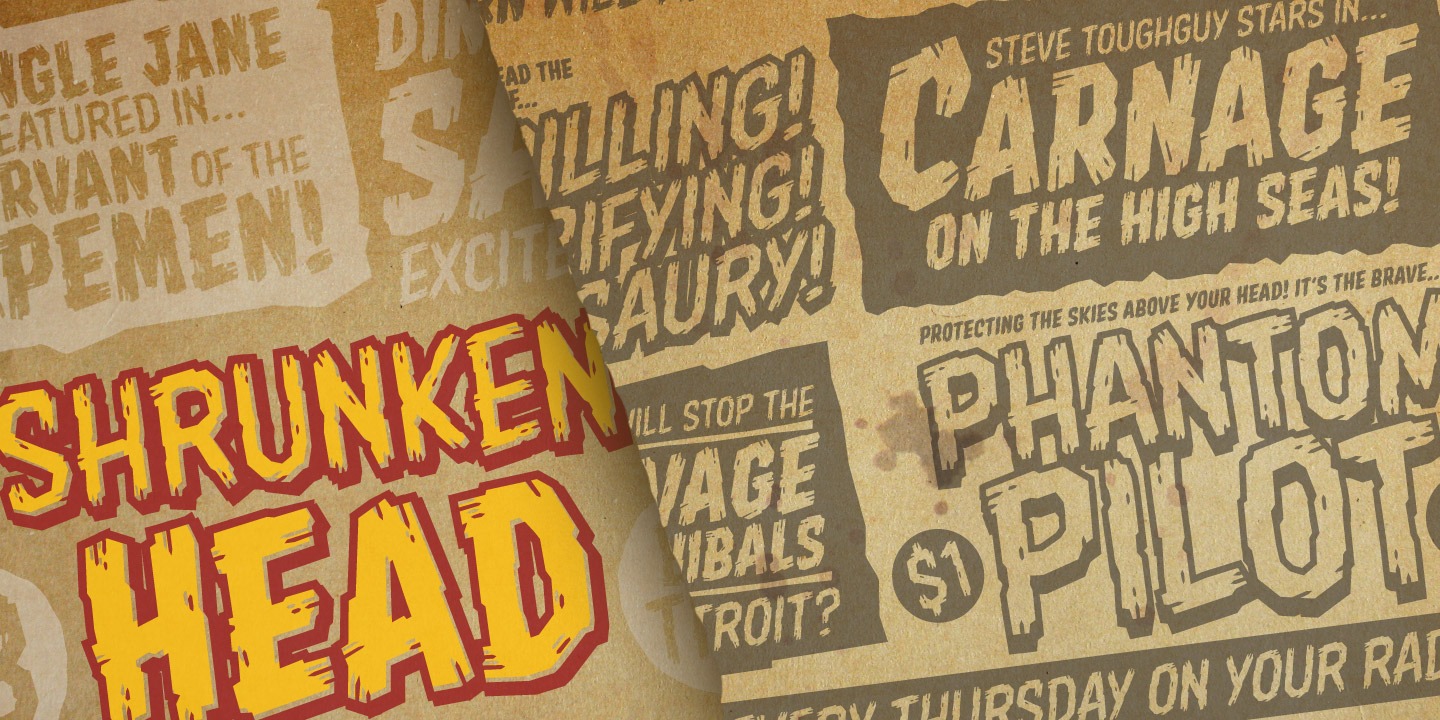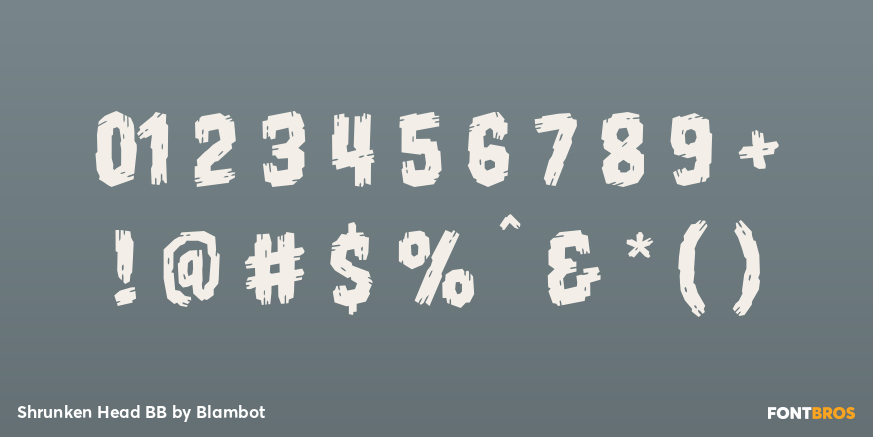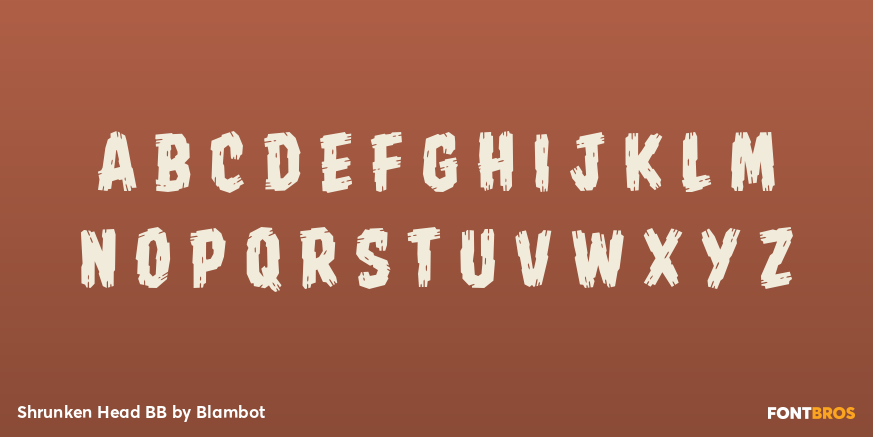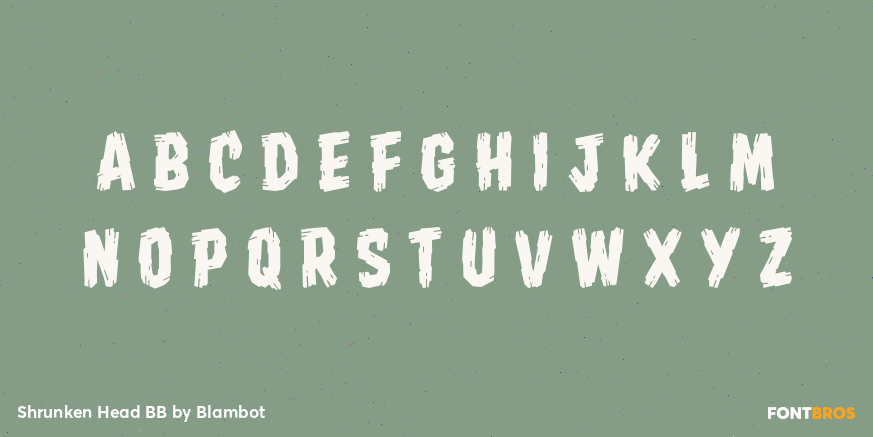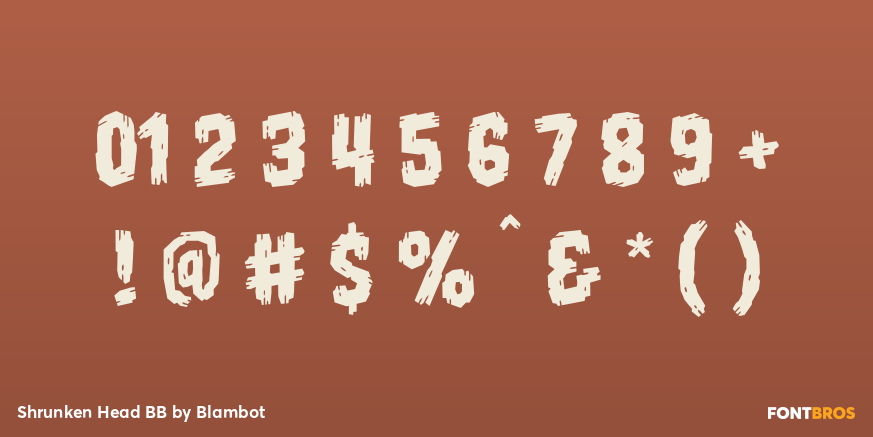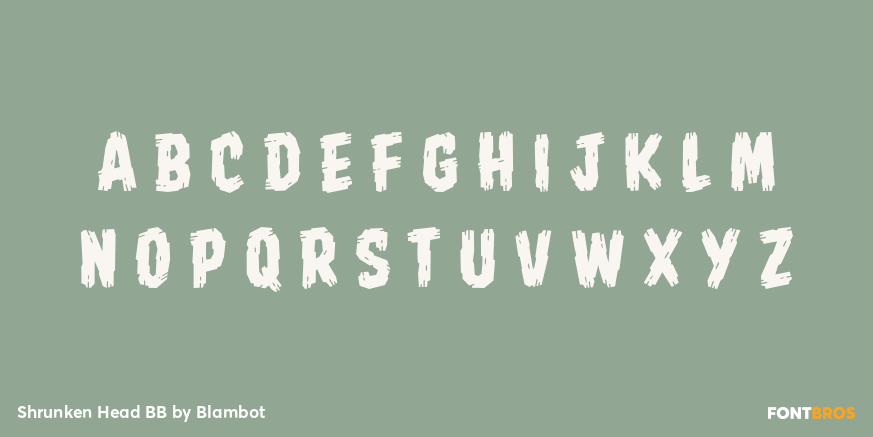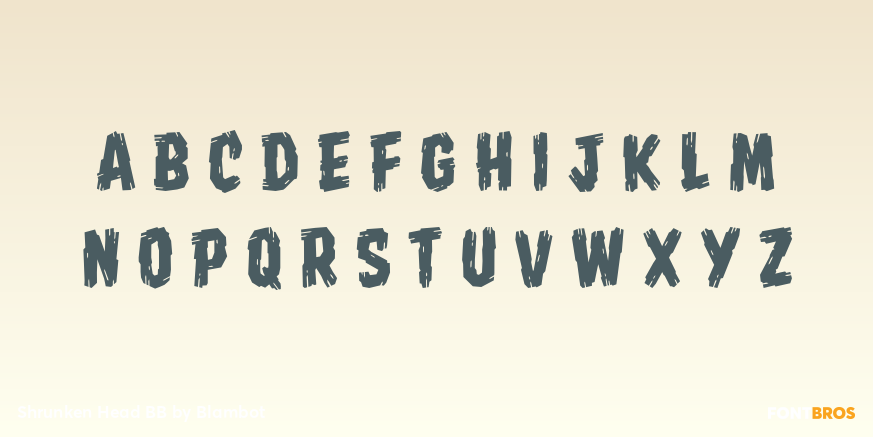
Shrunken Head BB
Font Family by Blambot
Shrunken head is a classic, distressed comic book title font. The family consists of regular, italic, light, and light italic. Comprehensive European characters are included.